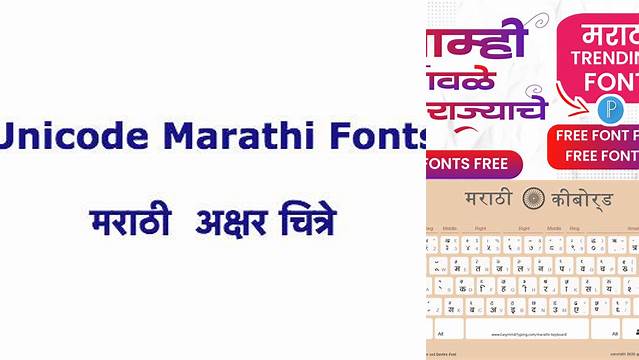
Hey guys! Looking to spice up your Marathi documents or creative projects? Finding the perfect unicode font can be a game-changer. No more struggling with compatibility issues or weird character displays. This guide will walk you through everything you need to know about finding and downloading Marathi Unicode fonts for free. Let's dive in!
Understanding Marathi Unicode Fonts
Before we jump into downloads, let's understand what Marathi Unicode fonts actually are. Unicode is a universal character encoding standard. It's essentially a system that assigns a unique number to every character, no matter the language, platform, or program. This means if you use a unicode font, your Marathi text will display correctly on any device or operating system that supports Unicode.
Why is this important? Well, older font systems often used custom encodings, which led to compatibility headaches. Imagine sending a document to someone, and all your Marathi text turns into gibberish on their screen! Unicode fonts solve this problem by ensuring consistent display across different systems. So, choosing a Unicode font is crucial for making your Marathi content accessible to everyone.
This universal compatibility makes unicode fonts a must-have for anyone working with Marathi text digitally. Whether you are creating documents, websites, or graphic designs, using Unicode fonts ensures that your content will be displayed correctly, regardless of the platform or device used to view it. Plus, it helps avoid the frustration of dealing with character encoding issues and compatibility problems.
Where to Find Free Marathi Unicode Fonts
Popular Marathi Unicode Font Styles
Now, let's talk style! Different unicode font styles can evoke different feelings and suit various purposes. Do you need something formal and professional for a business report? Or perhaps a playful and creative font for a poster? There are tons of options available. Some popular styles include:
- Serif Fonts: These fonts have small decorative strokes (serifs) at the end of each character. They often feel traditional and elegant.
- Sans-Serif Fonts: These fonts lack the serifs, giving them a cleaner, more modern look.
- Calligraphic Fonts: These fonts mimic handwriting, adding a personal touch to your text.
- Decorative Fonts: These fonts are more artistic and unique, perfect for grabbing attention.
Experiment with different font styles to find the perfect match for your project. A well-chosen font can significantly enhance the overall look and feel of your content. Don't be afraid to try out different combinations and see what works best for you. Remember, the font you choose can have a big impact on how your message is received, so choose wisely!
It is also a great idea to think about readability. A fancy decorative font might look great for a headline, but it could be difficult to read in large blocks of text. For body text, it's usually best to stick to a clear and legible serif or sans-serif font. Also, consider the size and spacing of the font to ensure optimal readability.